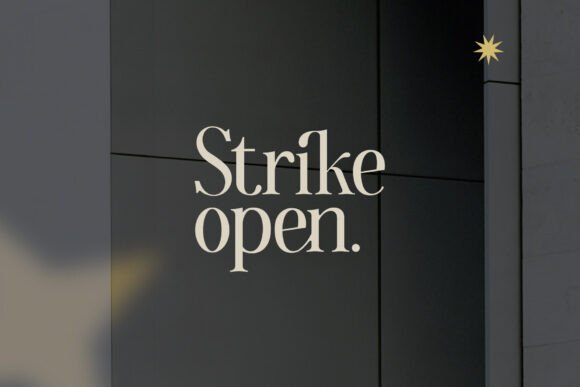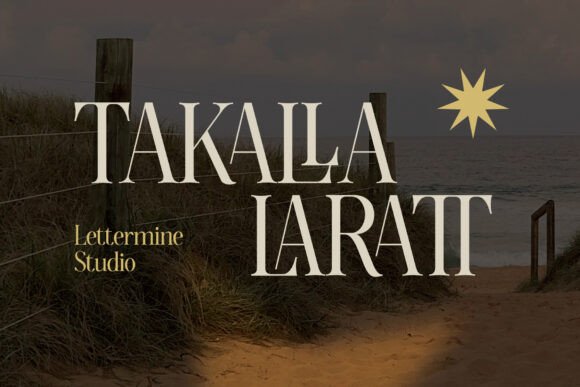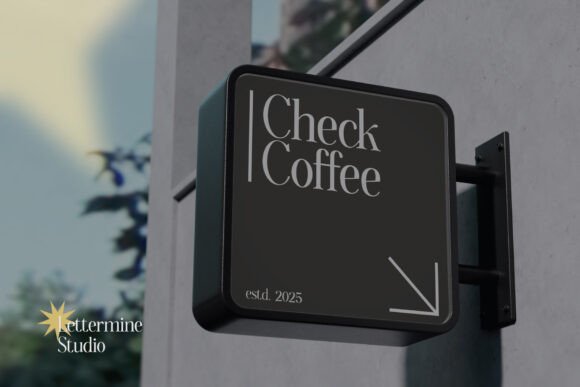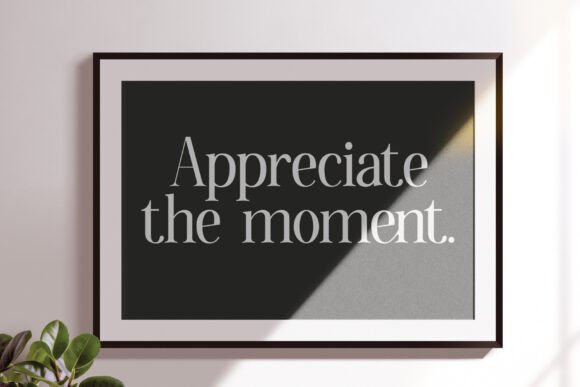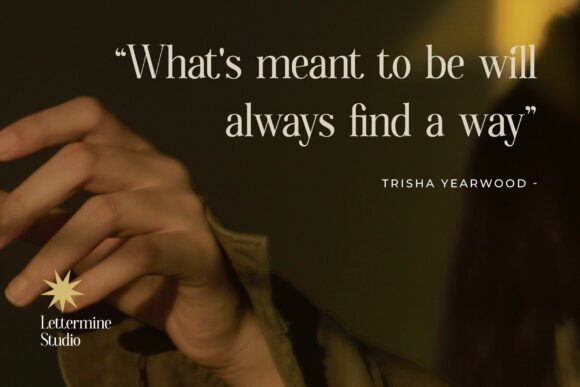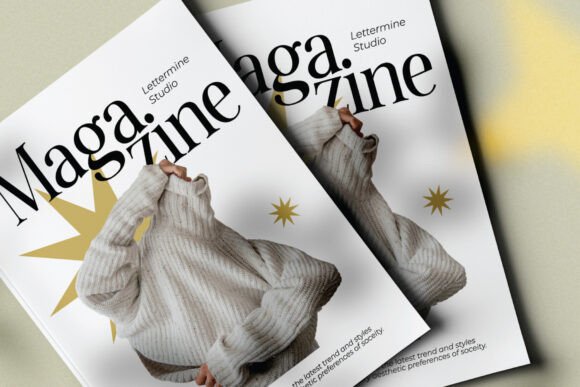
Introducing Gradine Font: The Epitome of Luxury and Sophistication
In the world of typography, a font can make or break the aesthetic of a design. For those seeking to infuse their projects with a sense of timeless elegance and refined sophistication, look no further than Gradine Font. This luxury serif font is meticulously crafted to embody the essence of high-end design, making it the perfect choice for upscale branding, editorial layouts, invitations, and high-end packaging.
The Design Philosophy Behind Gradine
Gradine’s design is rooted in the principles of classic serif typography, yet it boasts a distinctive flair that sets it apart from more traditional fonts. Its high contrast strokes and graceful curves lend each character a sense of fluidity and dynamism, exuding a class and exclusivity that is hard to achieve with standard fonts. The result is a typographic experience that feels both luxurious and approachable, capable of elevating any design project to new heights of sophistication.
Key Features of Gradine Font
- High Contrast Strokes: The pronounced contrast between thick and thin strokes in Gradine adds depth and dimension to text, making it visually compelling and perfect for high-end applications.
- Graceful Curves: The elegant curves of Gradine’s characters contribute to its refined appearance, ensuring that text flows beautifully and reads effortlessly.
- Serif Details: The meticulously designed serifs enhance readability while adding a touch of classic sophistication, making Gradine suitable for both digital and print media.
- Versatility: While Gradine excels in luxury branding and editorial design, its versatility means it can also be used effectively in invitations, high-end packaging, and any project requiring a touch of elegance.
Applications of Gradine Font
Gradine’s luxurious aesthetic makes it ideally suited for a variety of applications, including:
- Upscale Branding: Establish your brand as a leader in your industry with a logo or wordmark that exudes luxury and sophistication.
- Editorial Layouts: Elevate the look of magazines, newspapers, and digital publications with Gradine’s elegant and readable design.
- Invitations: Make your special events unforgettable with beautifully designed invitations that set the tone for an elegant affair.
- High-End Packaging: Stand out in the luxury goods market with packaging that communicates exclusivity and high quality through typography.
Why Choose Gradine Font?
In a crowded marketplace, it’s essential to select fonts that not only look great but also offer practical benefits. Here are a few reasons why Gradine stands out:
- Timeless Appeal: Unlike trend-driven fonts that may quickly become outdated, Gradine’s classic design ensures it remains stylish for years to come.
- High Readability: Despite its luxurious appearance, Gradine maintains high readability, making it suitable for body text as well as headlines.
Gradine Font is more than just a typeface; it’s a design statement. With its luxurious aesthetic, versatile application, and focus on readability, Gradine offers designers and crafters a powerful tool for creating visually stunning projects. Whether you’re aiming to elevate your brand, enhance your editorial designs, or simply add a touch of elegance to your work, Gradine is the perfect choice. Experience the difference that a truly exceptional font can make in your designs.